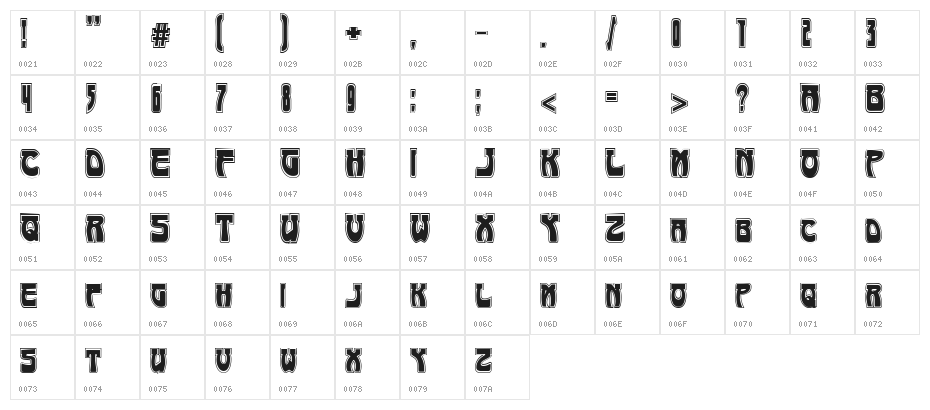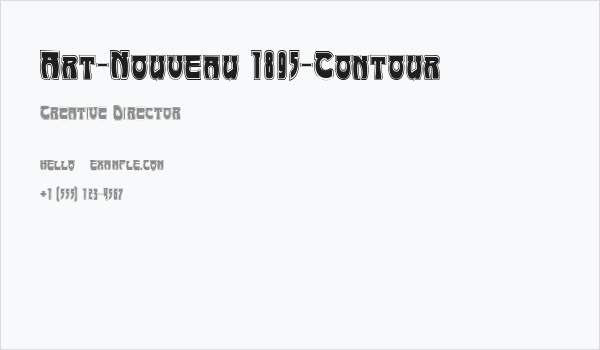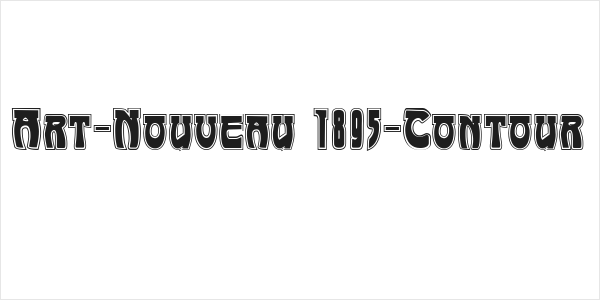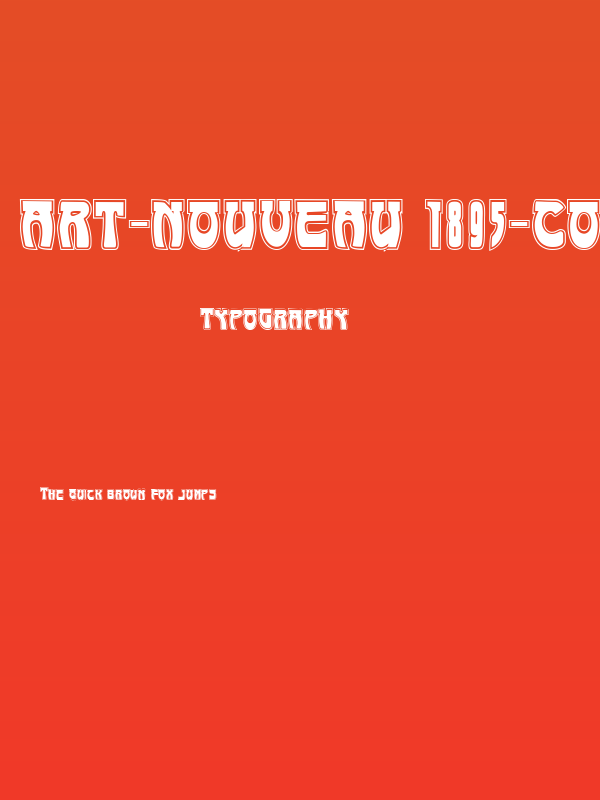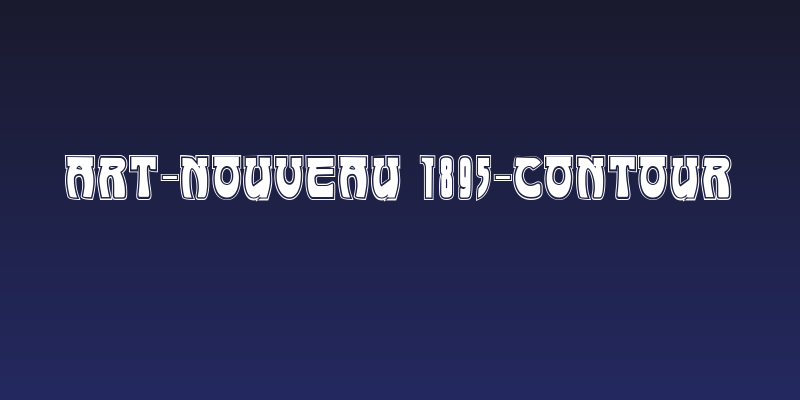
Art-Nouveau 1895-Contour Font
Art-Nouveau 1895-Contour Description
This font embodies the essence of the Art Nouveau movement with its intricate and decorative style. Each character is outlined with a bold contour, creating a striking visual impact. The letters are characterized by their flowing, organic shapes, reminiscent of natural forms and structures. The uppercase and lowercase letters maintain a consistent design, with unique curves and embellishments that add to the font's ornate appearance. The numbers and special characters follow the same stylistic approach, ensuring a cohesive look across all elements. This font is perfect for projects that require a touch of elegance and historical flair.
| Proposed Projects | Ideal for vintage-themed posters, invitations, branding for luxury products, and artistic book covers. |